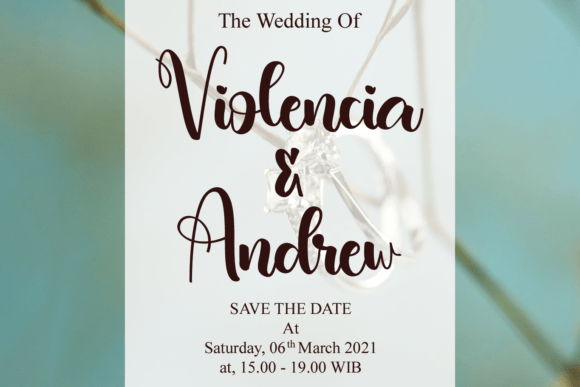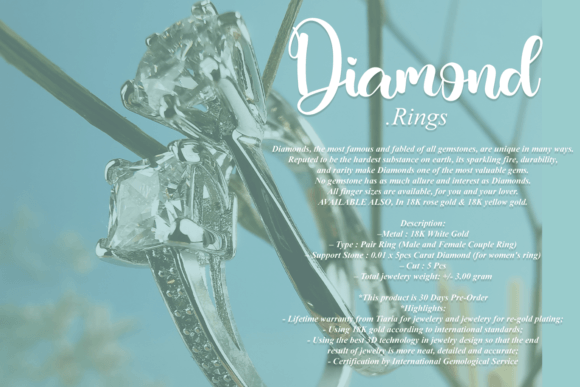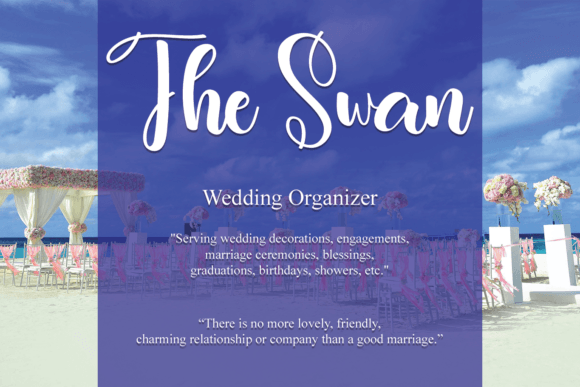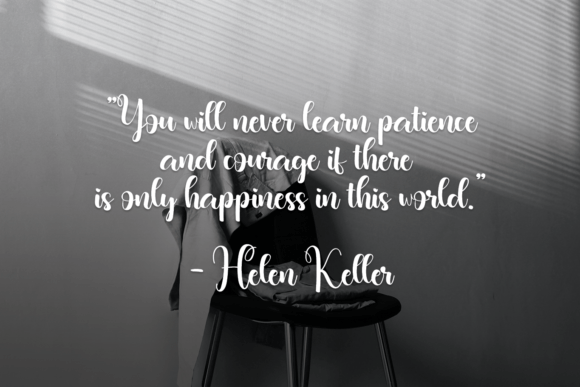
About Clothes Font
Introducing “Clothes,” an exquisite handwritten font masterfully designed to become a true favorite. This font maintains its classy calligraphic influences while embodying a contemporary and fresh feel. Fall in love with “Clothes” and elevate your projects to the highest levels of style and sophistication.
The balance of classic calligraphy and modern design in “Clothes” makes it a versatile font suitable for a variety of creative applications. Whether you’re working on fashion branding, logos, invitations, or any project that requires a touch of elegance, this font is crafted to stand out.
Imagine “Clothes” gracing your fashion brand’s logo, where its exquisite style adds a timeless and sophisticated touch. Picture it becoming the signature font for your creative projects, conveying both class and modernity. Envision it being used in various contexts where a touch of elegance is needed, creating a cohesive and refined visual identity.
“Clothes” is not just a font; it’s a design element that seamlessly blends classic and contemporary aesthetics. Its well-crafted letterforms and calligraphic influences make it a standout choice for those seeking sophistication in their designs.
Add “Clothes” to your font collection and experience how it effortlessly elevates your creative projects. Let it be the exquisite handwritten font that brings a timeless and classy charm to your branding, invitations, and beyond!